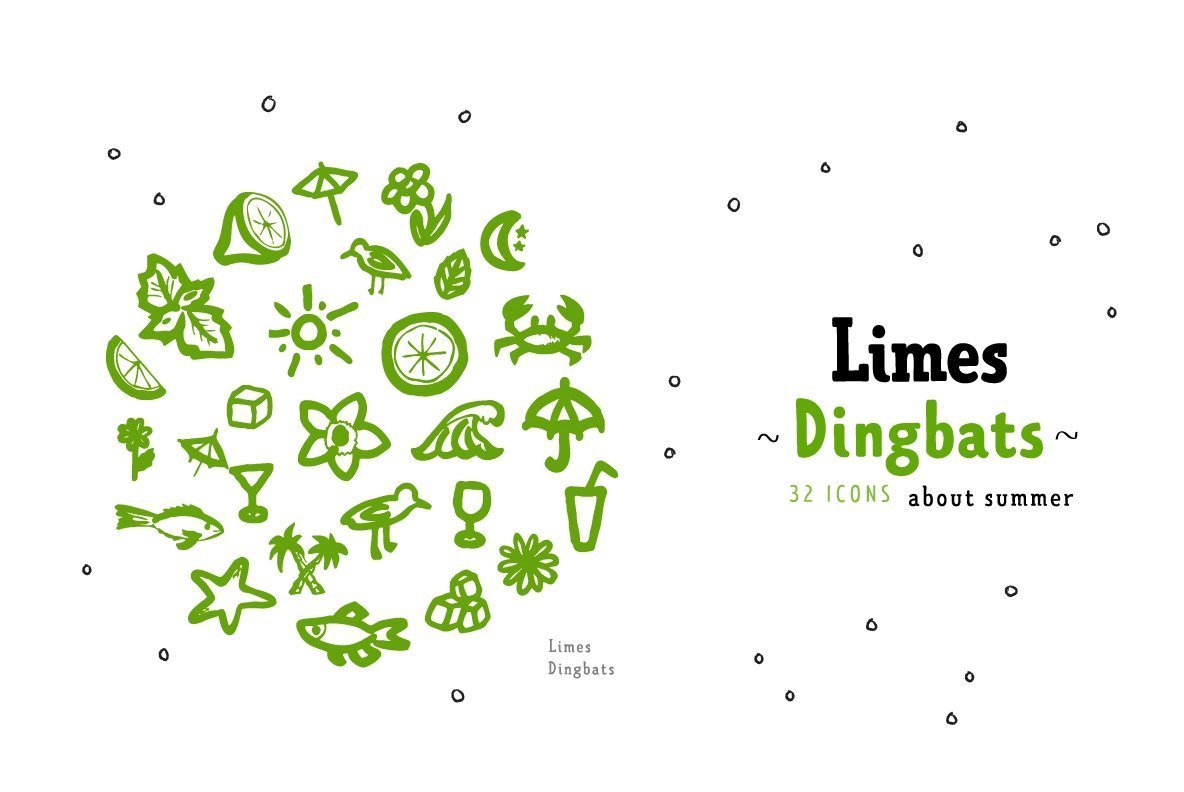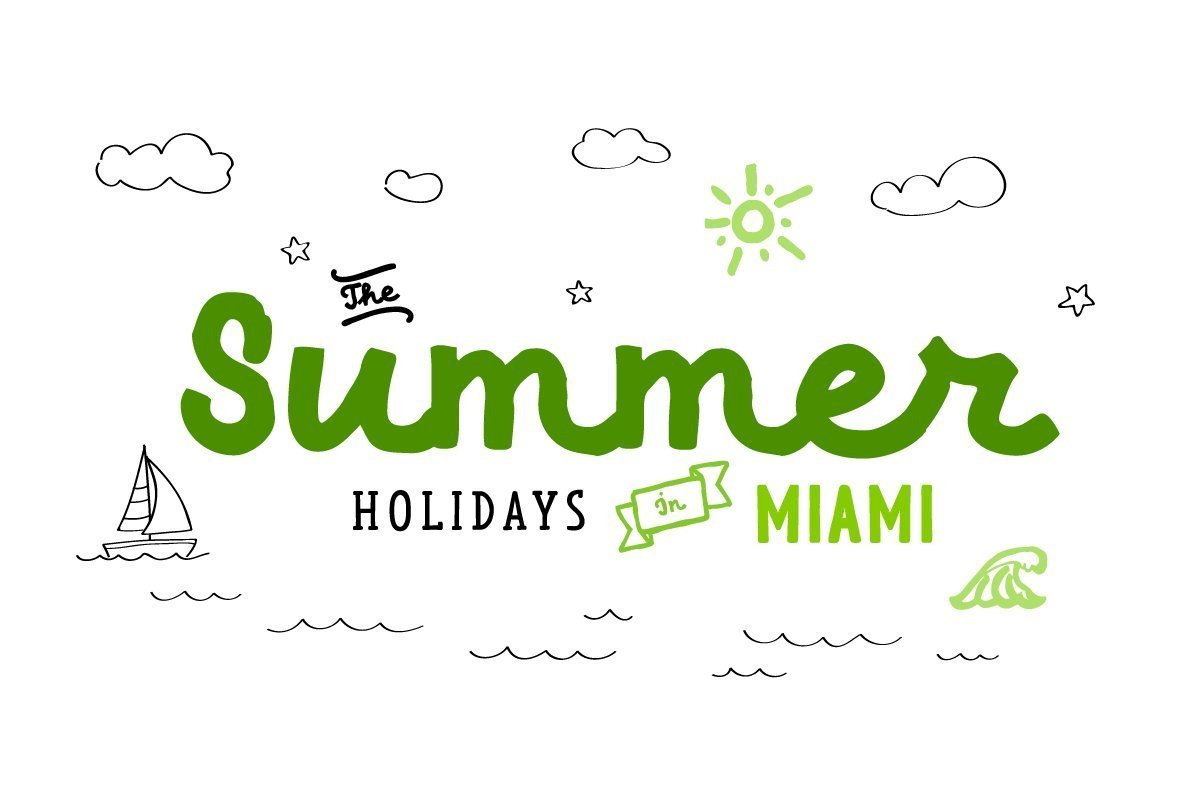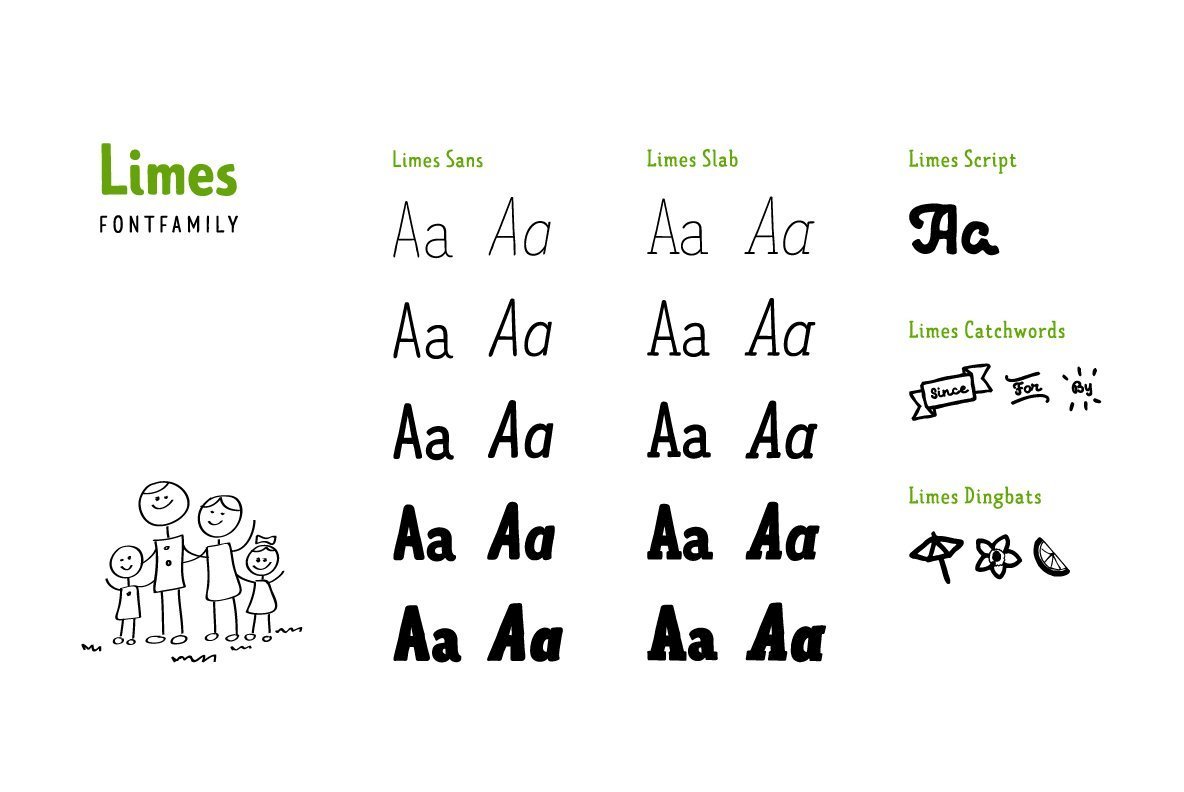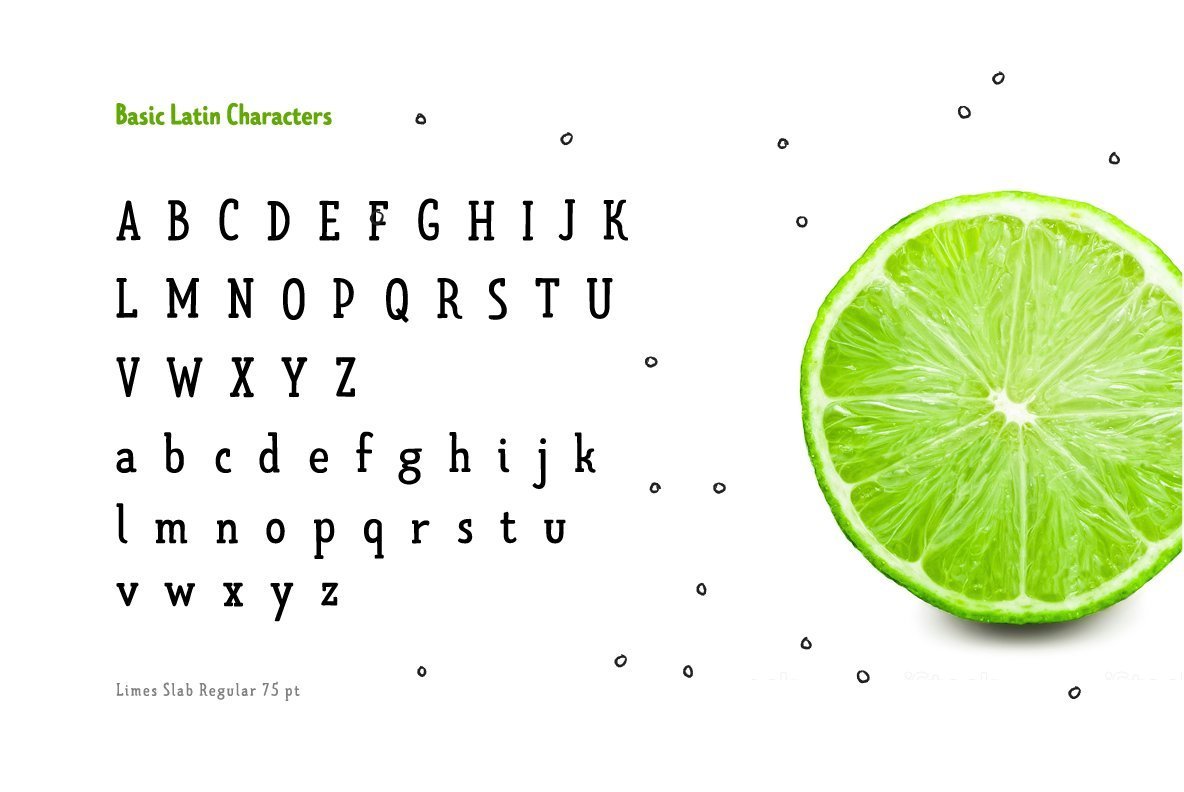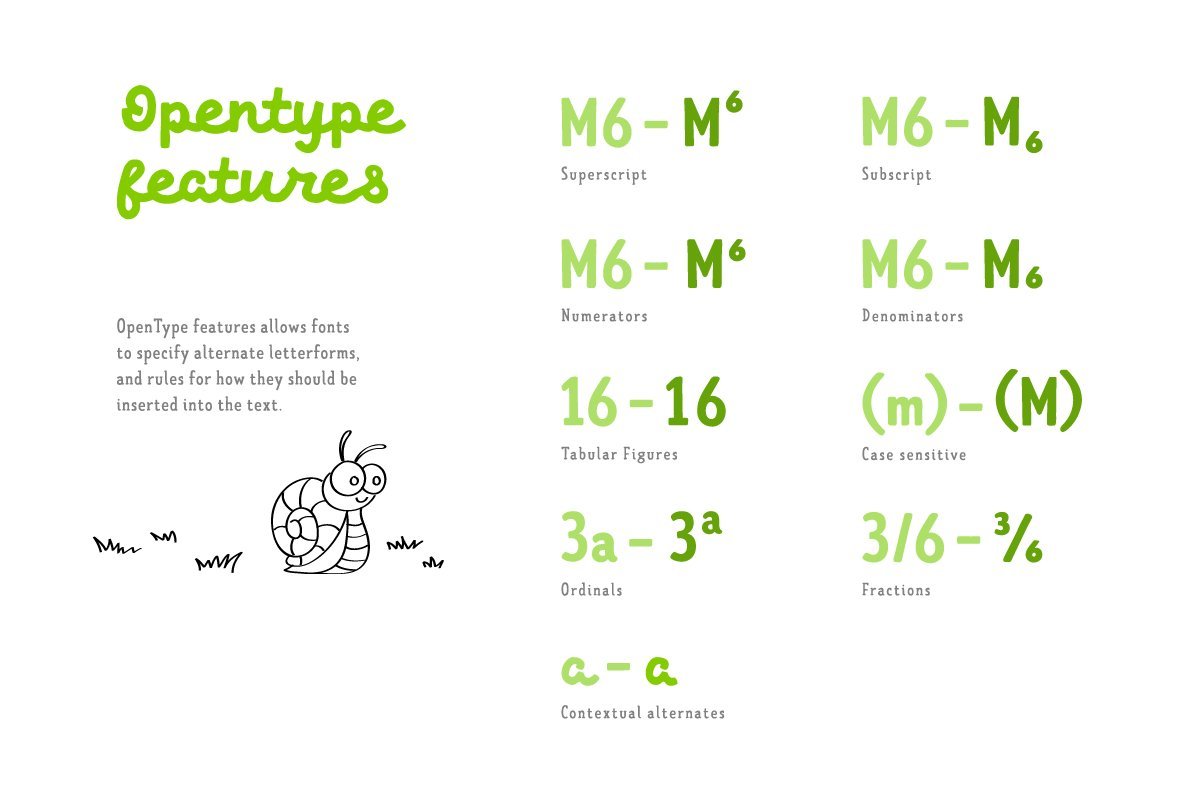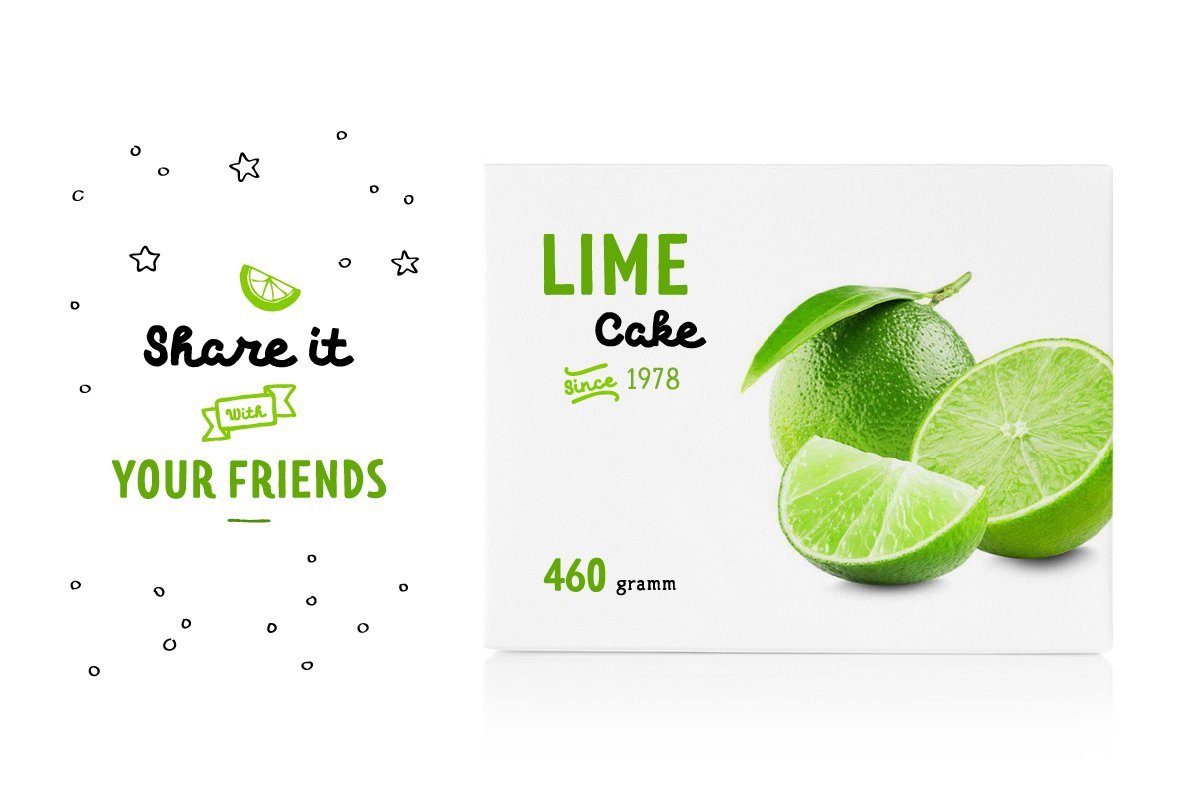
Limes Font
The idea of Limes emerged at the seashore last year in late summer. Getting ready in advance for a dark winter, we've decided to design a special fontfamily which would bring a bit of vitamins and summer sun into the rough everyday routine and help us survive the cold winter. Limes is both a dream of the sun while it’s gone and a refreshing breeze for the time when it finally gets warm!
Limes is a completely handwritten fontfamily and consists of 23 typefaces. To create Limes Sans and Limes Slab families, we've used regular watercolor brushes, and to create monolinear Limes Script, as well as for Catchwords and Dingbats, we've used a felt-tip pen with circular section. Limes Sans and Limes Slabs fonts work perfectly together with Limes Script due to the general handwritten idea, as well as due to the widths contrast – despite its width, Limes Script mixes well with narrower opponents and adds a bit of human spontaneity into the general handwritten concept.
The Limes collection includes: Limes Sans (Thin, Light, Regular, Bold, Black & italics), Limes Slab (Thin, Light, Regular, Bold, Black & italics), Limes Script, Catchwords and Dingbats. Limes Sans and Limes Slab widely support OT features: tnum, ordn, frac, case, numr, dnom, subs, sups, and Limes Script uses a large number of context alternatives.